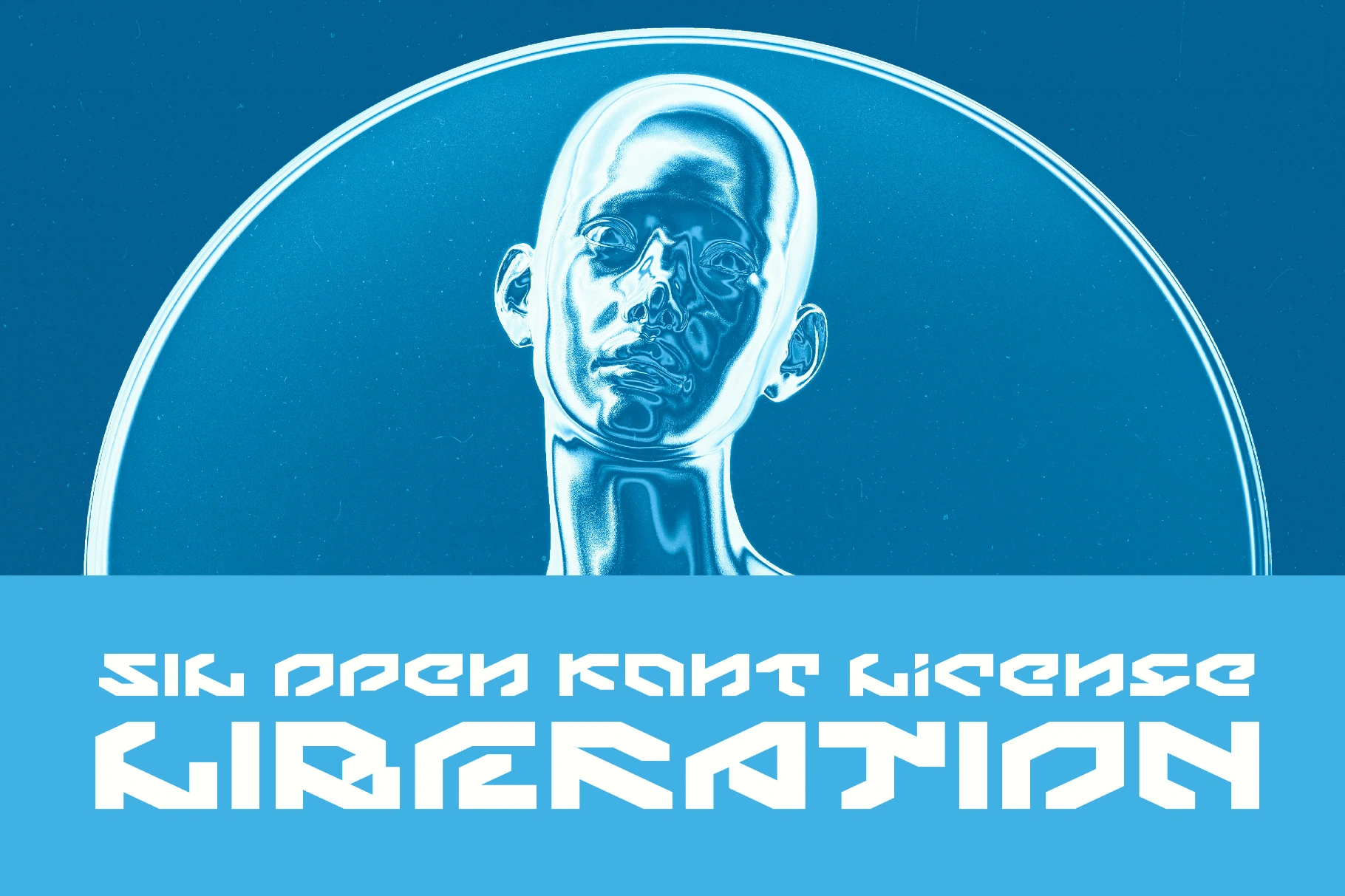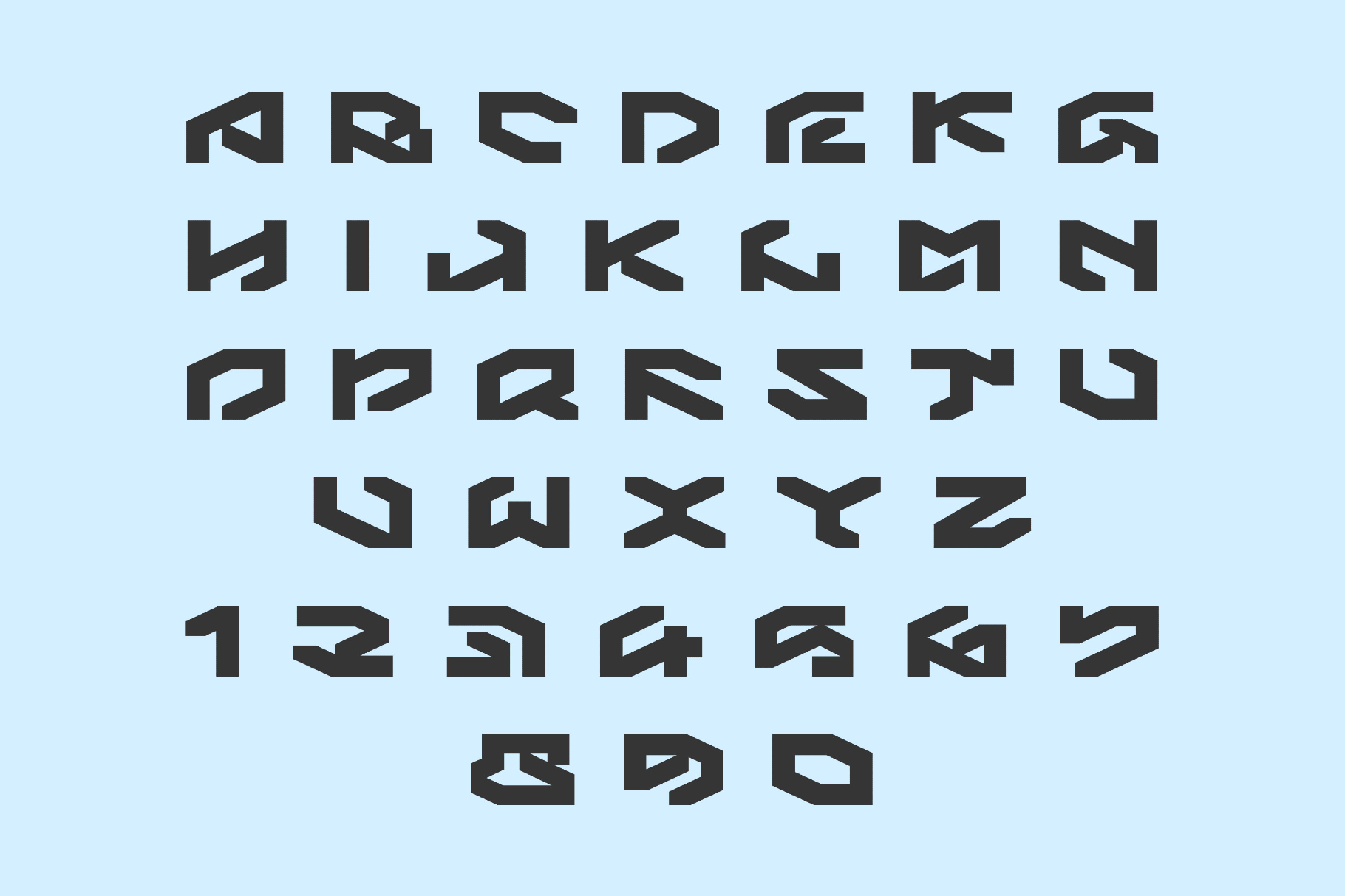
Liberation For 7 Kiks Font
Liberation For 7 Kiks is a crisp sci-fi font built from heavy block letters with square counters and hard diagonals that look straight off a title screen. Its raw energy suits gig posters, cyberpunk logos, game titles, underground branding, album covers, splash screens, launchers, skate or streetwear graphics, protest visuals, and social media.